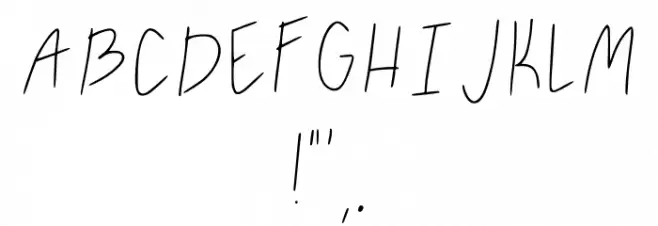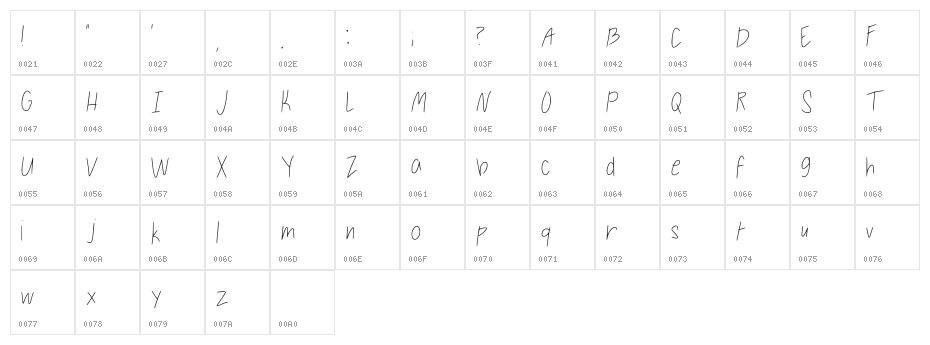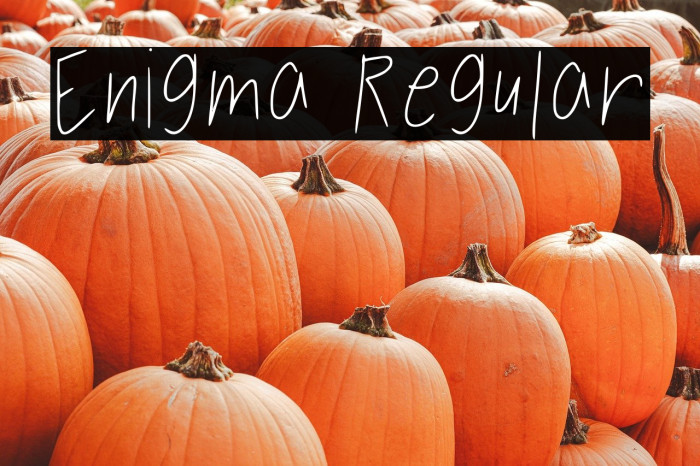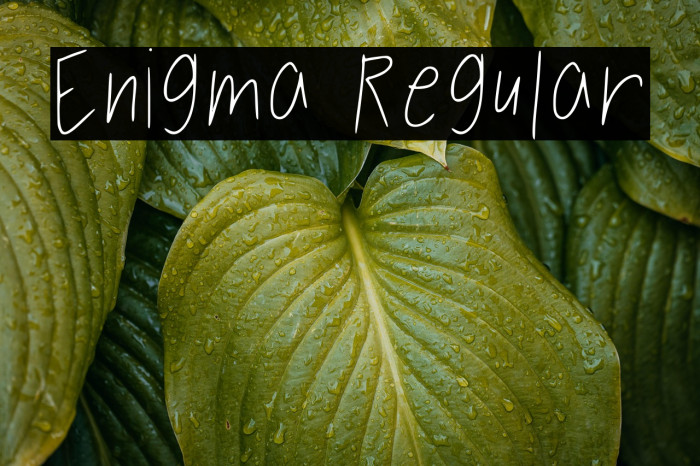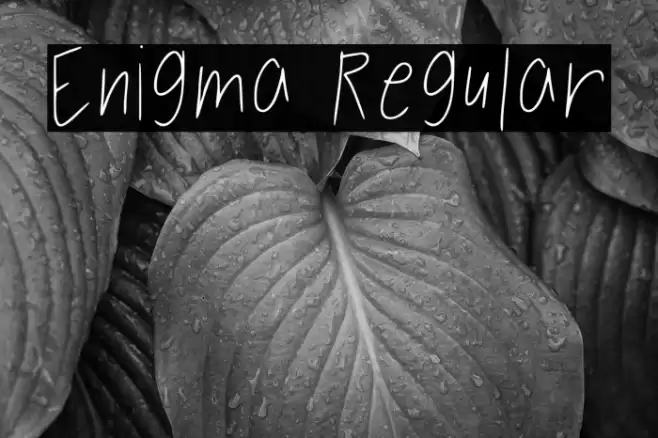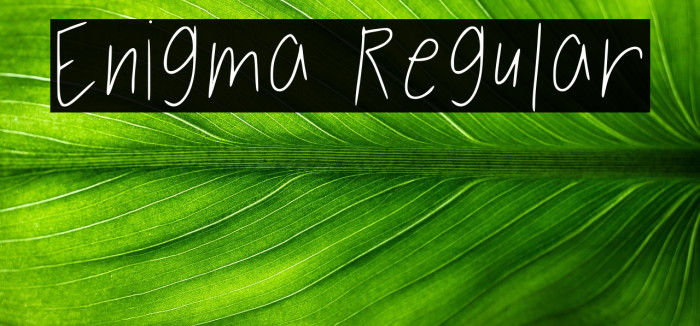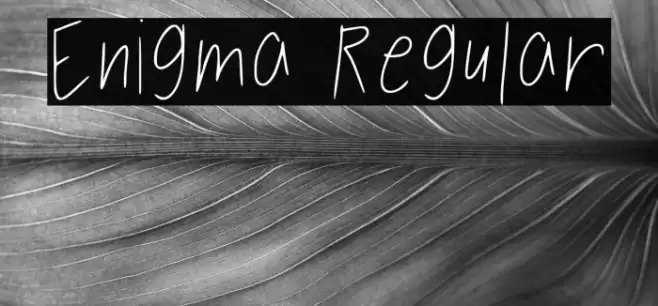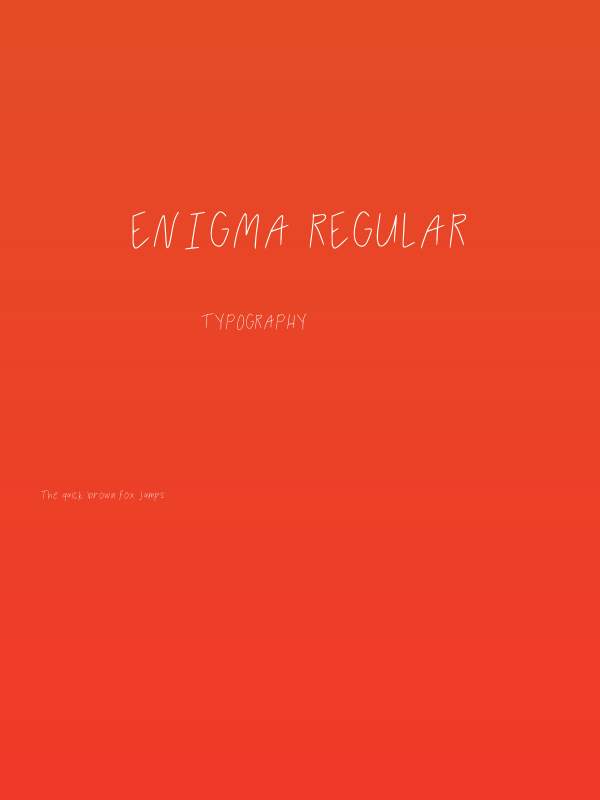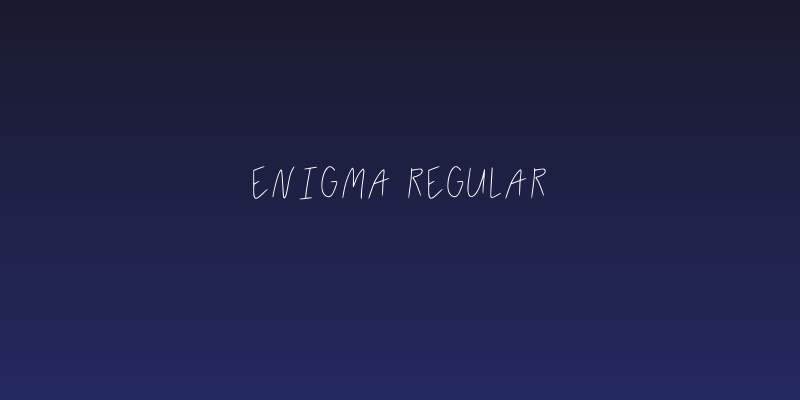
Enigma Regular Font
Enigma Regular Description
This font features a casual, handwritten style with a playful and informal appearance. The letters are slightly slanted, giving it a dynamic and lively feel. The strokes are consistent in width, contributing to a clean and approachable look. The characters are well-spaced, ensuring readability while maintaining a relaxed aesthetic. This font is versatile, suitable for projects that require a personal touch or a friendly tone. It captures the essence of handwritten notes, making it ideal for creative and informal applications.
| Use Case | Headlines, Logos, Informal text |
| Proposed Projects | Ideal for greeting cards, personal blogs, creative invitations, and informal branding. |